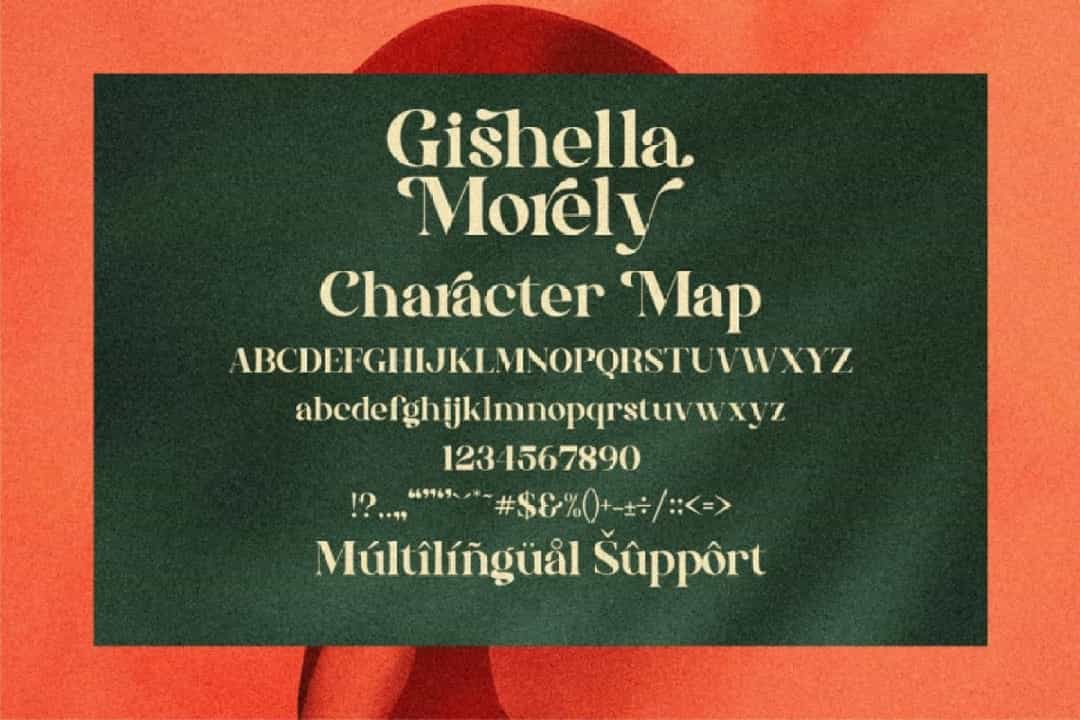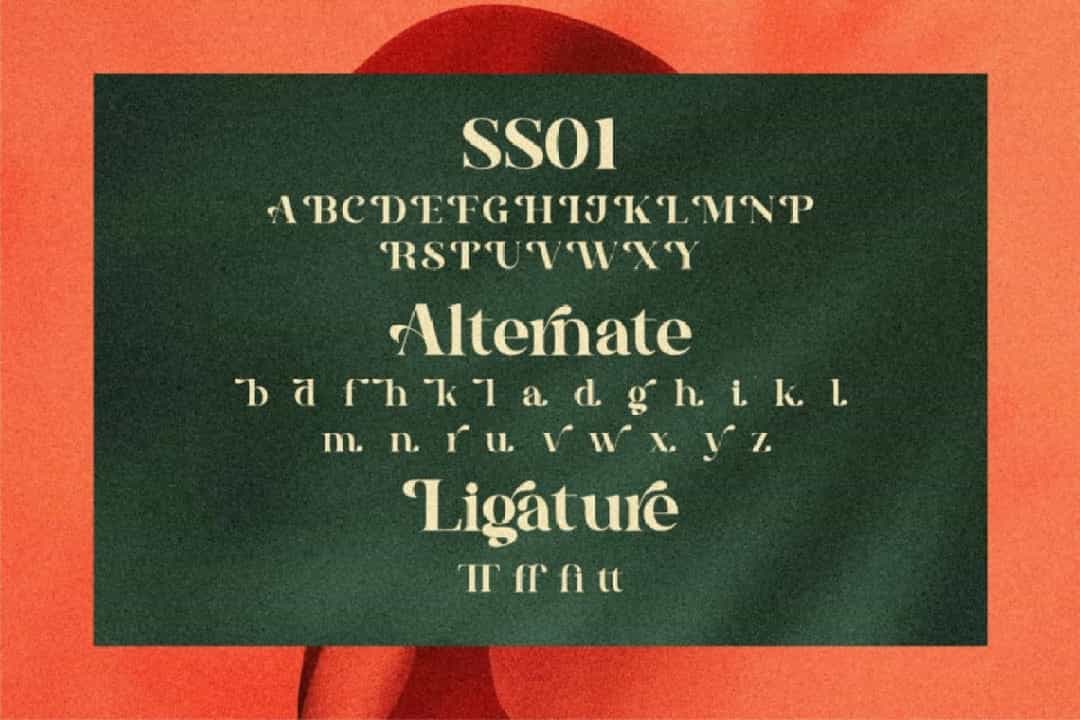
Gishella more is an elegant serif font that can be used in all projects that have beautiful serif writing styles like logos, brands, homeware, packaging for products like mugs and posters, quotes, shopping bags, T-shirts, book covers, name cards, invite cards, greeting cards, labels, photography watermark, special occasions , and events that need beautiful serif text.